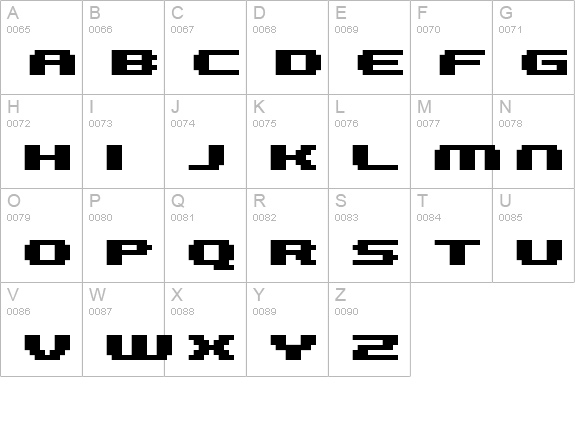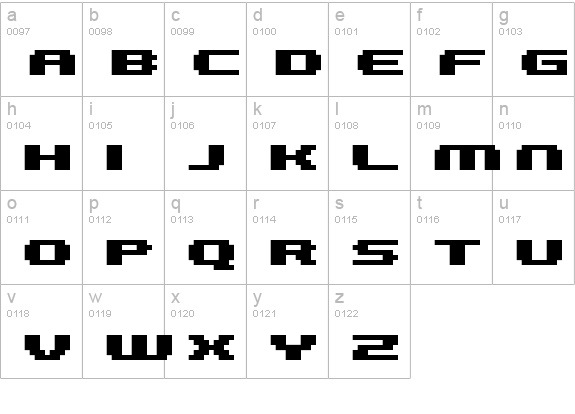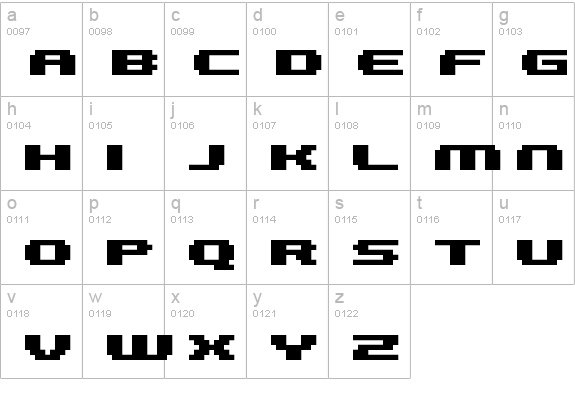
FFF Galaxy Extra Bold Extended Font Details
FFF Galaxy Extra Bold Extended is a strong, high-contrast, extended-width variant in the FFF typeface family \xE2\x80\x94 well suited to headlines, attention-grabbing titles, and strong calls-to-action.
Introducing FFF Galaxy Extra Bold Extended font, a stunning display typeface that exudes power and modernity. With its bold and extended design, this font makes a bold statement and demands attention. The sharp lines and geometric shapes give it a futuristic and dynamic appearance, perfect for projects that require a strong visual impact. The best part? FFF Galaxy Extra Bold Extended font is available for free download at FontsMarket.com! Whether you're working on a poster, logo, or any other design project, this font will add a touch of sophistication and flair. Don't miss out on the opportunity to enhance your creations with this striking typeface. Download it now and unleash your creativity!